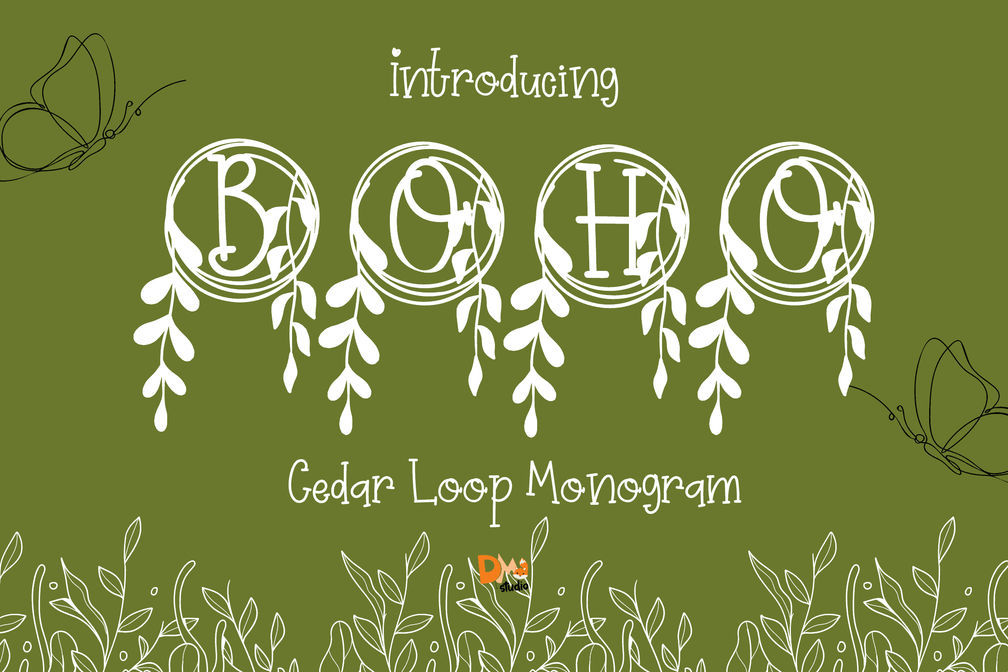
Cedar Loop Monogram
Cedar Loop Monogram – Elegant Serif Monogram Font with Natural Flourishes
Cedar Loop Monogram is a refined serif monogram font embellished with graceful looped flourishes inspired by the natural elegance of cedar branches. With flowing details and classic serif construction, this monogram font is perfect for adding a sophisticated, organic touch to personalized designs, seasonal branding, and wedding stationery.
Nature-Inspired Loops: Delicate curved elements evoke the soft, flowing shapes of cedar twigs and loops.
Elegant Serif Base: Clean, structured serifs create a timeless monogram foundation.
Designed for Monograms: All uppercase characters are ideal for initials, emblems, and decorative pairings.
Ideal For: Wedding decor, custom branding, Cricut crafts, holiday stationery, rustic gifts, and nature-themed logos.